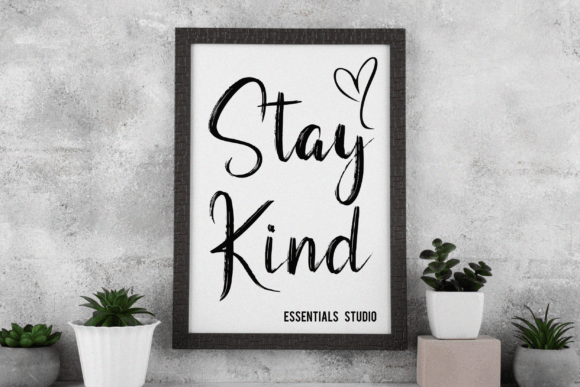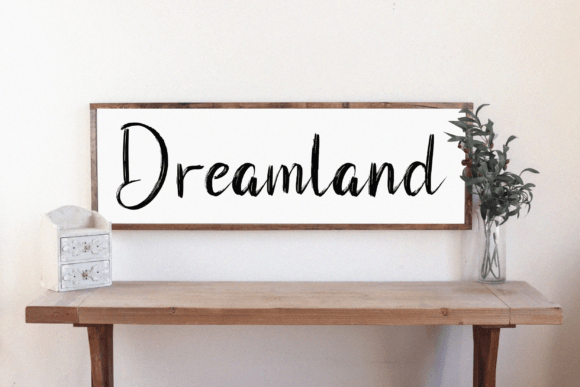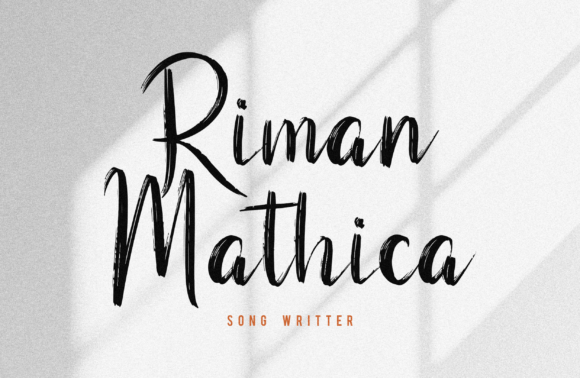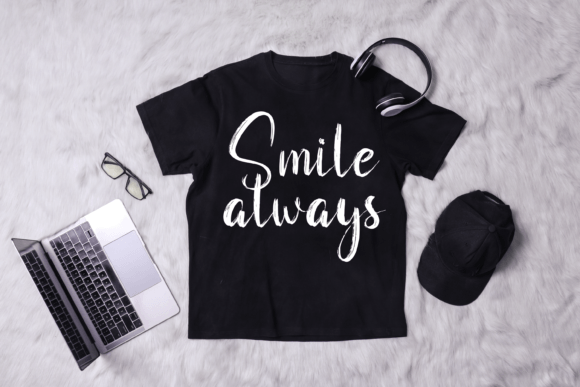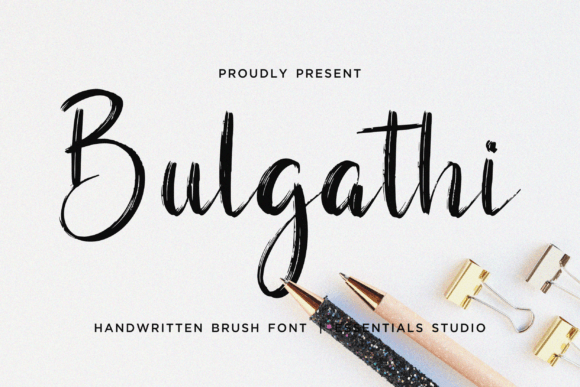
Bulgathi Font: Elevate Your Design with Modern Brush Handscript Style
In the world of typography, fonts play a crucial role in conveying the tone and personality of a brand, product, or creative project. If you’re a designer, craftsperson, or DIY enthusiast looking for a unique and modern font to elevate your work, look no further than Bulgathi Font. This stunning brush handscript font is perfect for a wide range of applications, from product packaging and branding projects to magazines, social media, weddings, and more.
What is Bulgathi Font?
Bulgathi Font is a modern brush handscript font that boasts a distinctive, hand-crafted look. Its unique blend of elegance and playfulness makes it an excellent choice for designers and crafters seeking to add a personal touch to their work. With its fluid strokes and dynamic letterforms, Bulgathi Font is sure to capture attention and leave a lasting impression.
Key Features of Bulgathi Font
- Modern Brush Handscript Style: Bulgathi Font features a modern take on traditional brush handscript typography, with a unique blend of elegance and playfulness.
- Highly Versatile: This font is perfect for a wide range of applications, including product packaging, branding projects, magazines, social media, weddings, and more.
- Easily Customizable: Bulgathi Font is highly customizable, allowing you to adjust letter spacing, font size, and color to suit your design needs.
- Unique Letterforms: Each letterform in Bulgathi Font has been carefully crafted to create a distinctive, hand-crafted look that sets it apart from other fonts.
Bulgathi Font is an excellent choice for designers and crafters seeking to add a personal touch to their work. Whether you’re creating product packaging, branding materials, or social media graphics, this font is sure to elevate your design and capture attention. Its unique blend of elegance and playfulness makes it perfect for a wide range of projects, from weddings and events to magazines and editorial content.
Use Cases for Bulgathi Font
- Product Packaging: Add a personal touch to your product packaging with Bulgathi Font, and make your brand stand out on store shelves.
- Branding Projects: Use Bulgathi Font to create unique and memorable branding materials, such as business cards, letterheads, and brochures.
- Magazines and Editorial Content: Add a touch of elegance and sophistication to your magazine or editorial content with Bulgathi Font.
- Social Media Graphics: Use Bulgathi Font to create eye-catching social media graphics that capture attention and drive engagement.
- Weddings and Events: Make your wedding or event stationery truly special with Bulgathi Font, and add a personal touch to your invitations, menus, and more.
Tips for Using Bulgathi Font
- Experiment with Font Sizes: Try using Bulgathi Font in different font sizes to create visual interest and hierarchy in your design.
- Play with Color: Experiment with different colors to find the perfect match for your brand or design.
- Add Texture and Patterns: Add texture and patterns to your design to give it a more dynamic and interesting look.
- Use it with Other Fonts: Try pairing Bulgathi Font with other fonts to create a unique and visually appealing typography combination.
In conclusion, Bulgathi Font is a stunning modern brush handscript font that is perfect for designers, crafters, and DIY enthusiasts seeking to add a personal touch to their work. With its unique blend of elegance and playfulness, highly customizable design, and wide range of use cases, Bulgathi Font is sure to elevate your design and capture attention.
| Font Name | Bulgathi Font |
| Author | Essentials Studio |